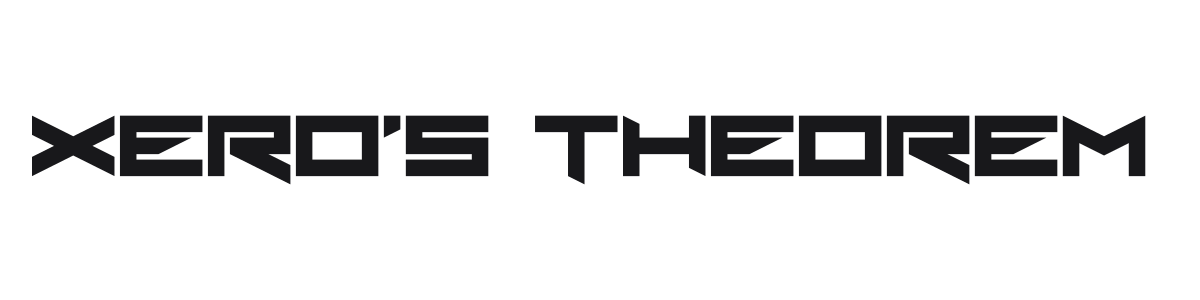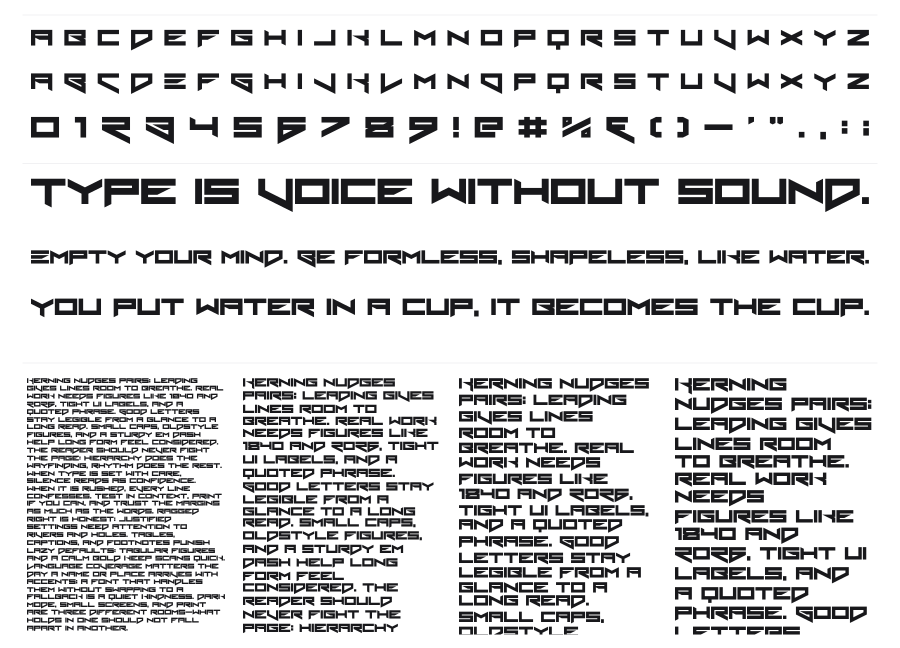
Xero's Theorem
Xero's Theorem is a wide, heavy techno display face built from sharp angles and notched terminals that give it a militaristic sci-fi edge. Every stroke is purposeful and blunt, with diagonal cuts at letter openings that create a sense of engineered precision. It thrives on posters, game titles, and anywhere a design needs to feel like it came off a spacecraft.